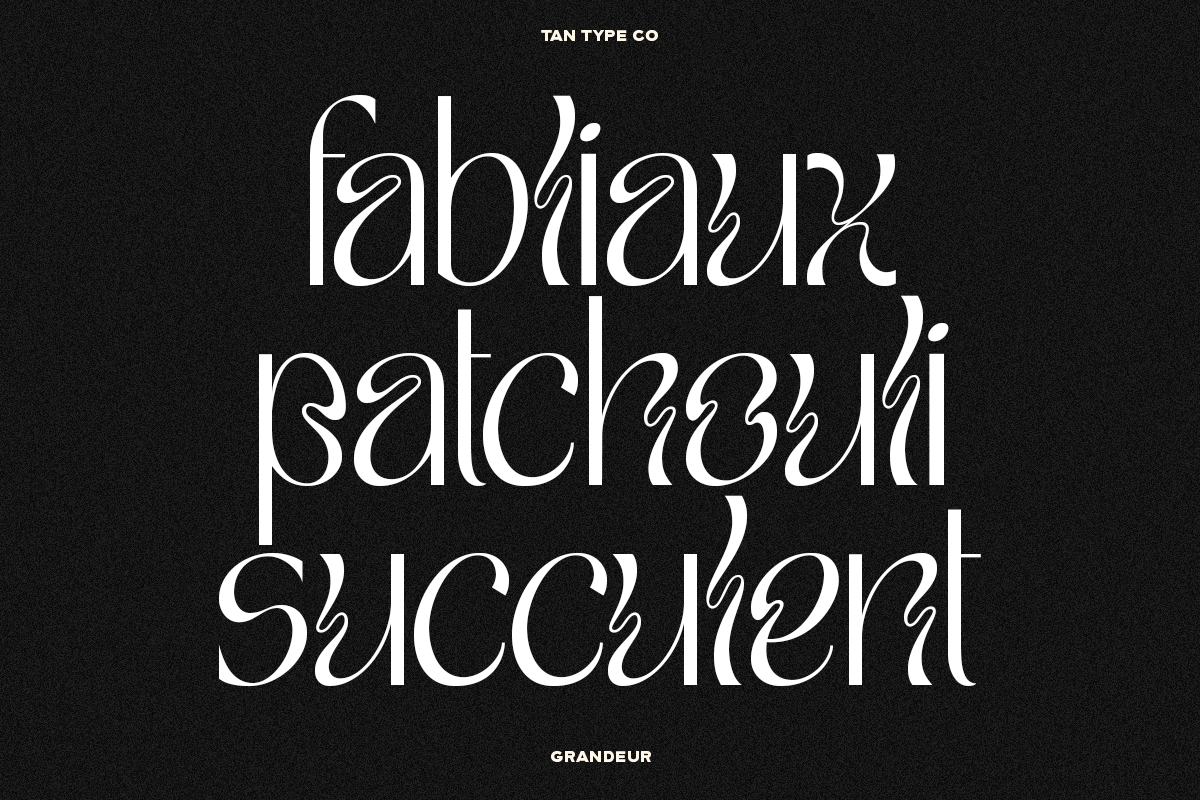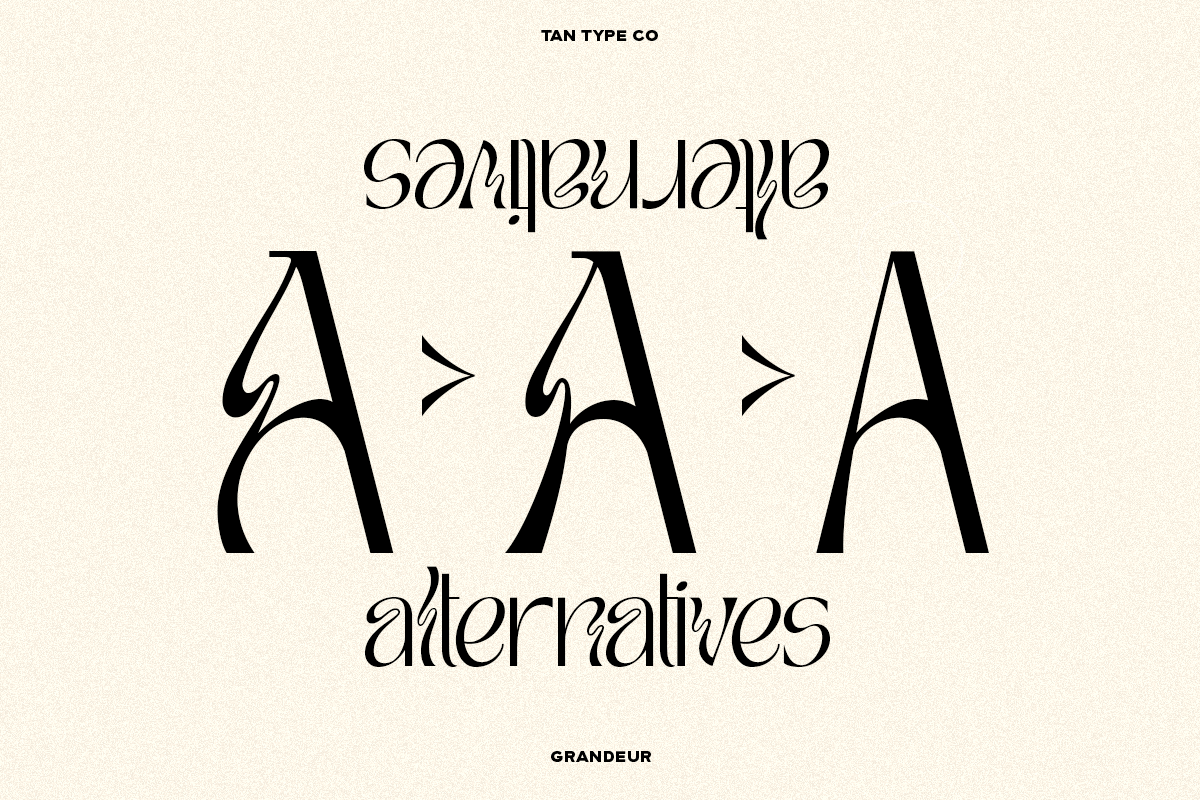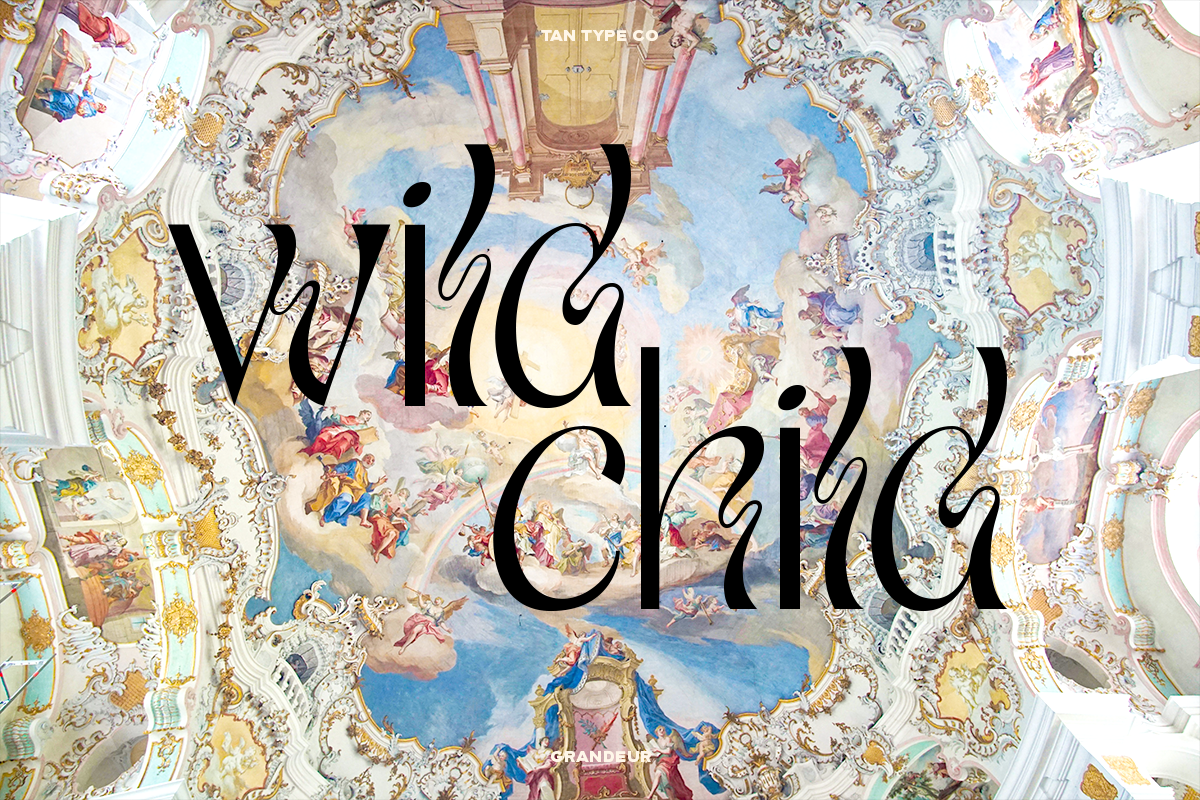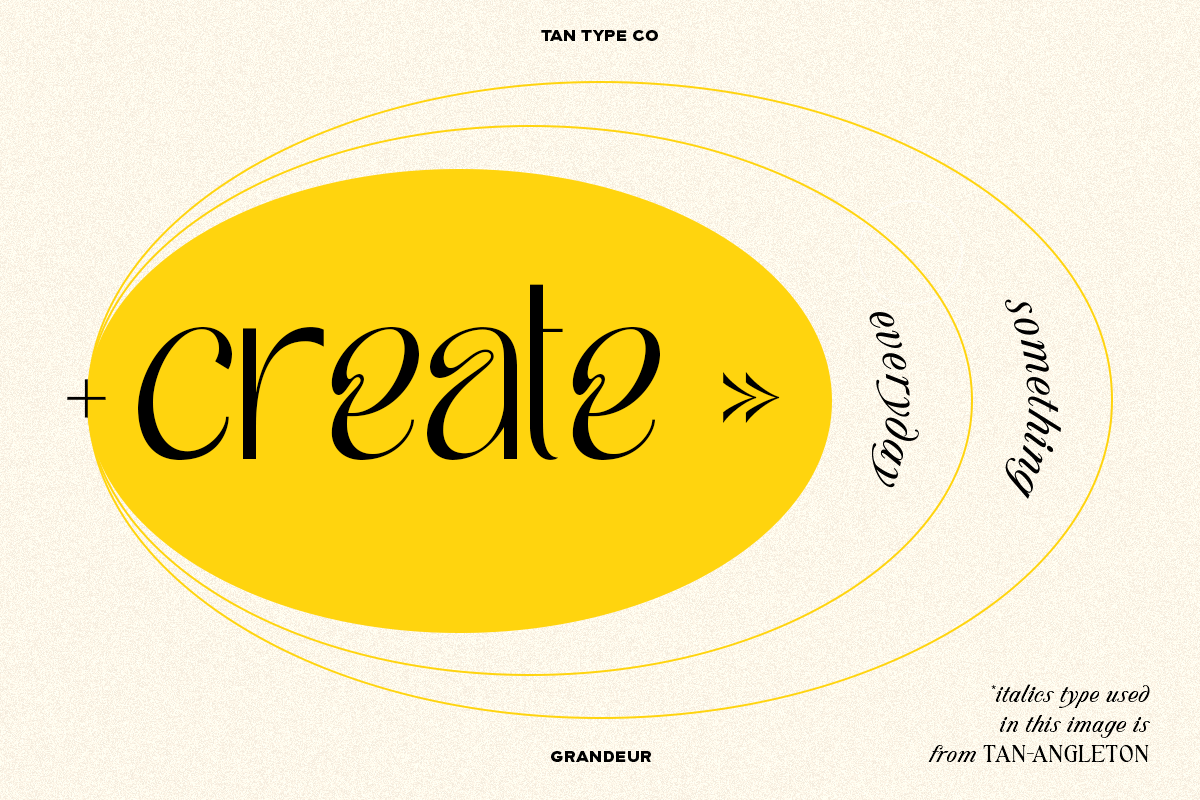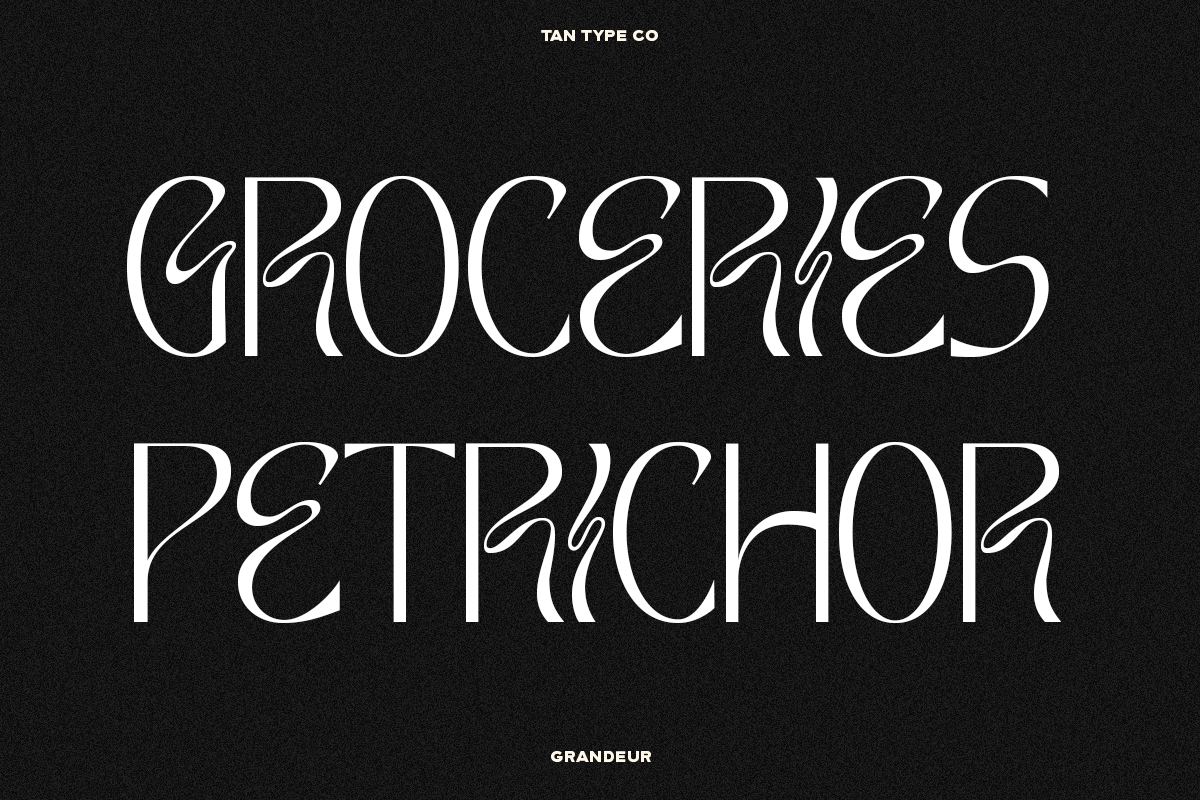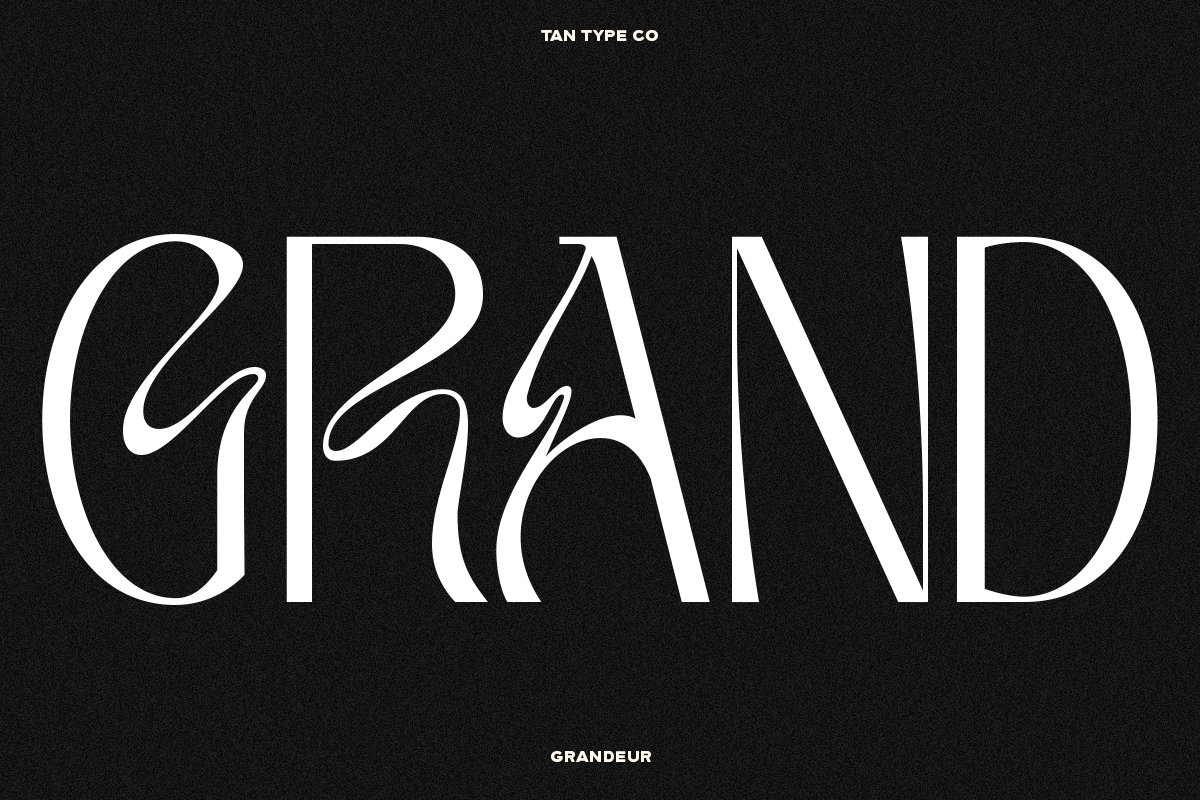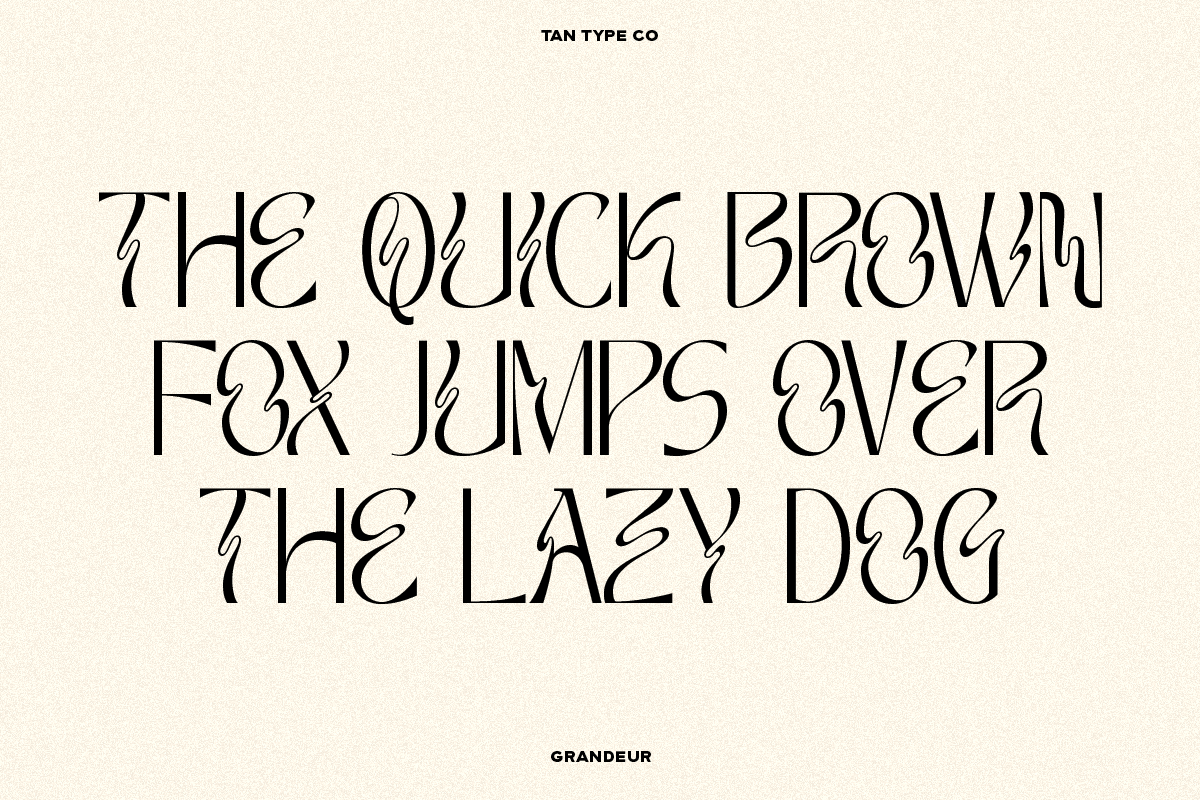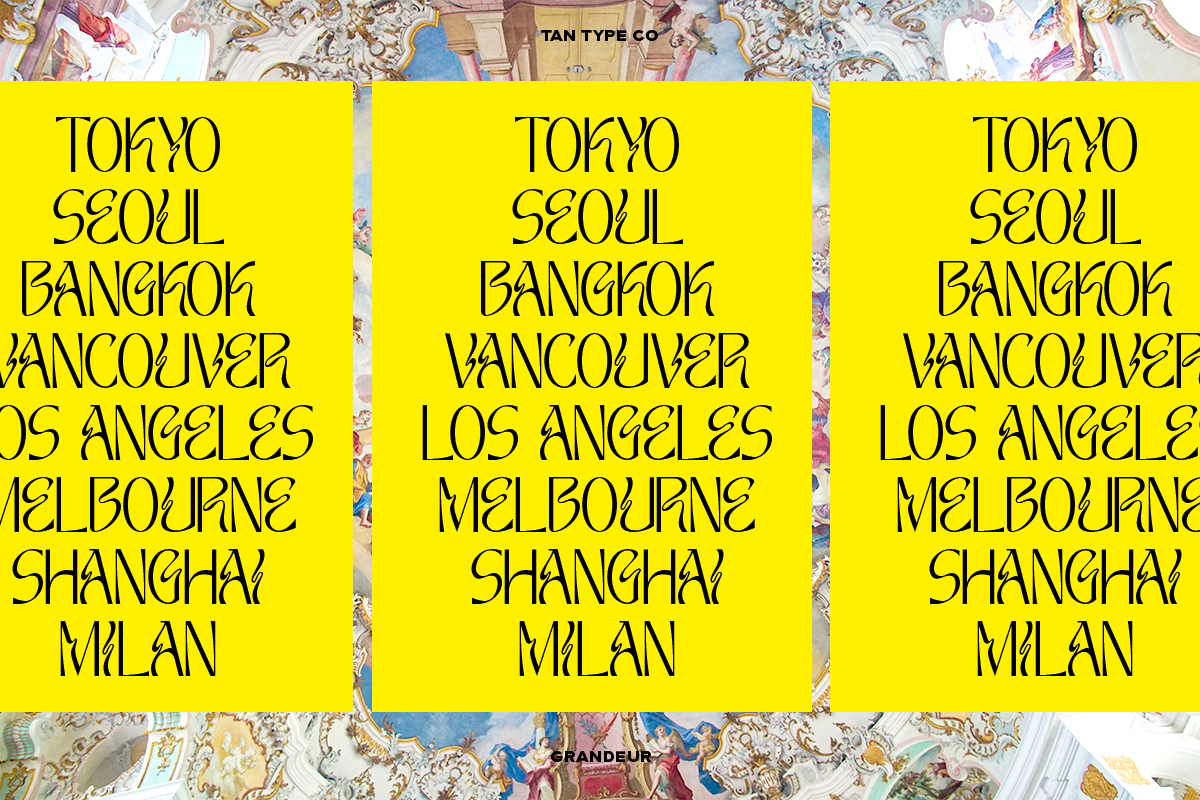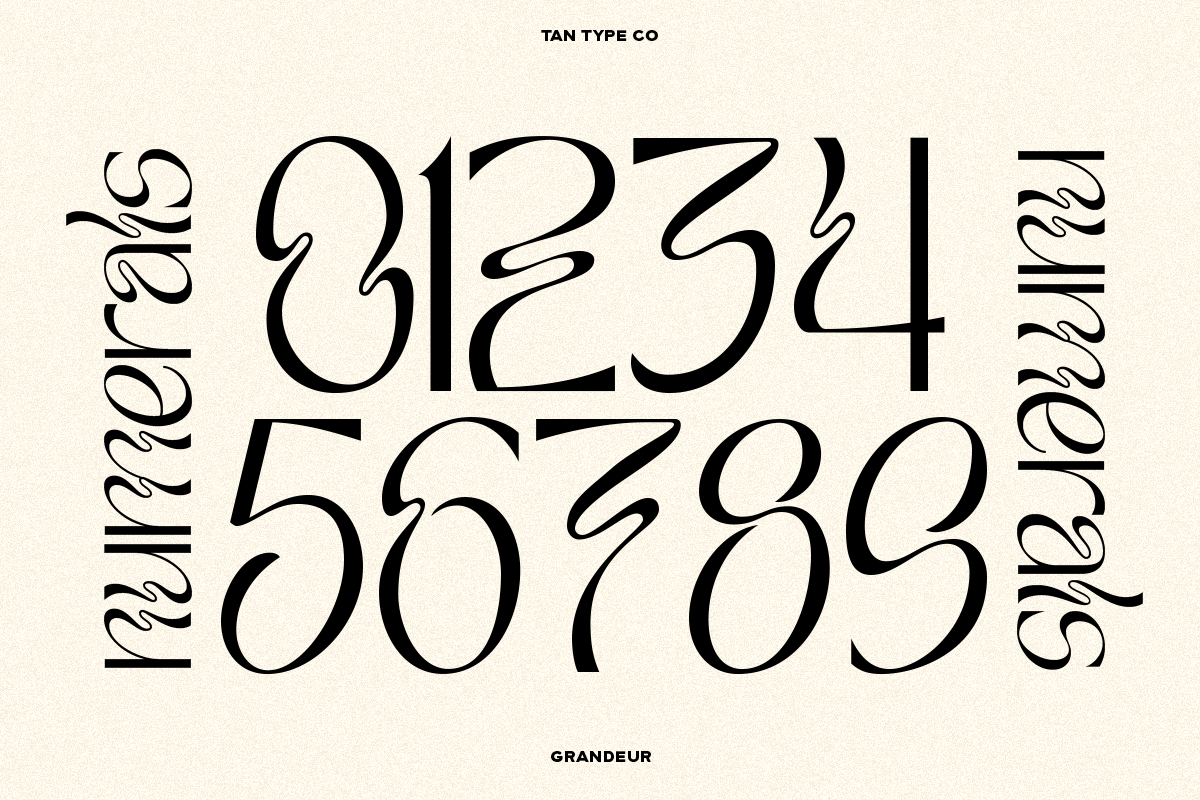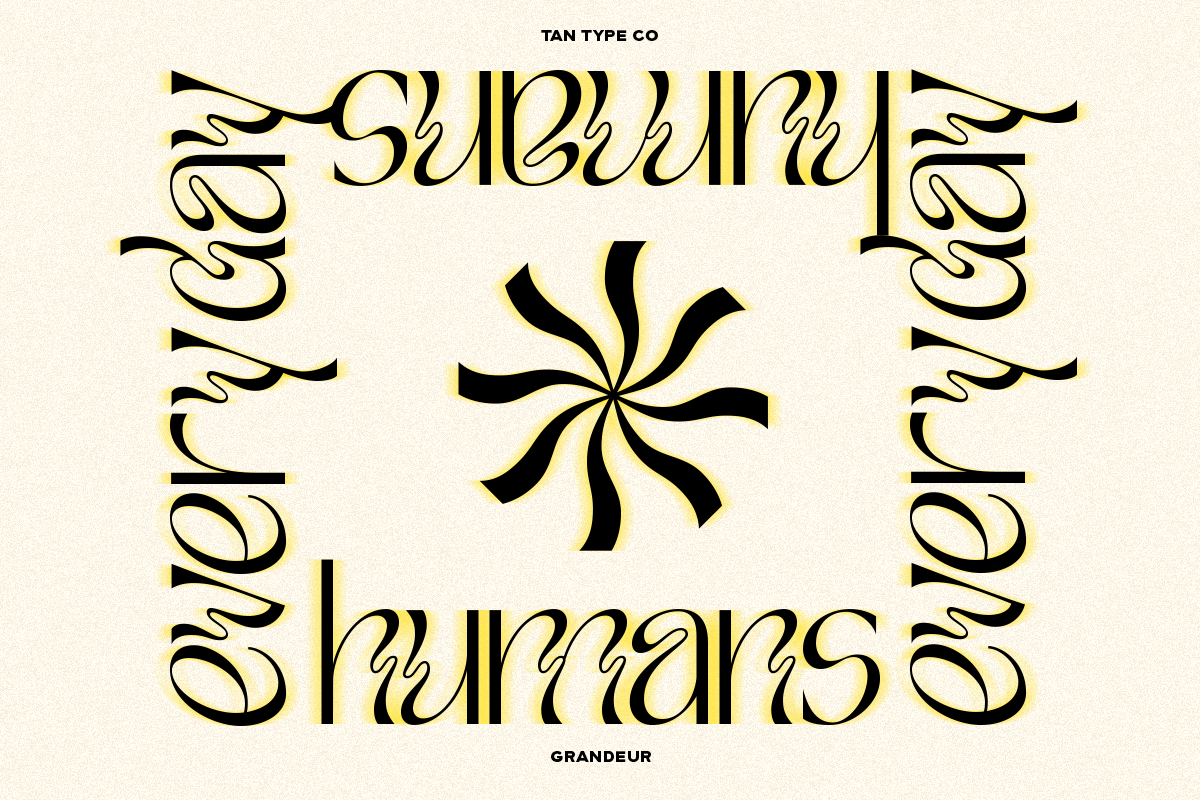
TAN - GRANDEUR ; just like its name — a highly stylized typeface with over the top psychedelic vibes. One of a kind, certainly not the kind of typeface you see everyday. Utterly unique. A bold choice for a bold soul.